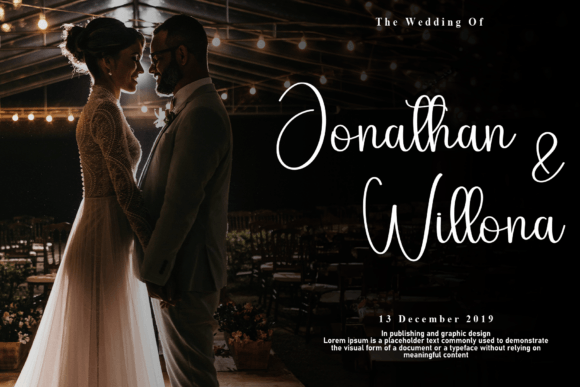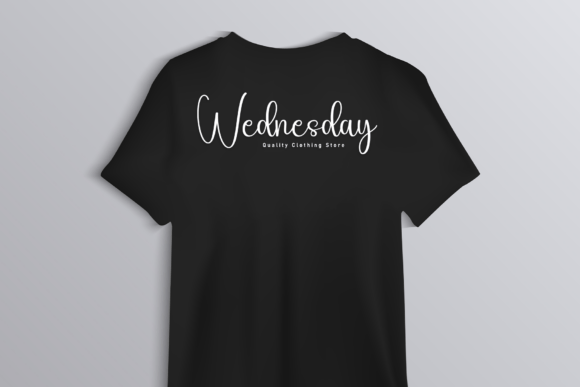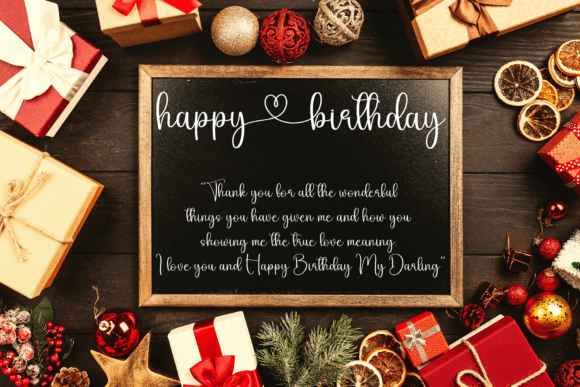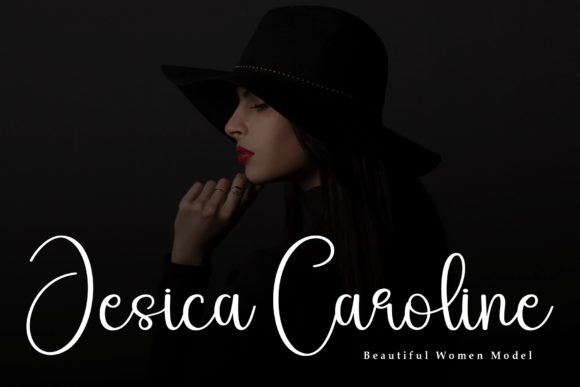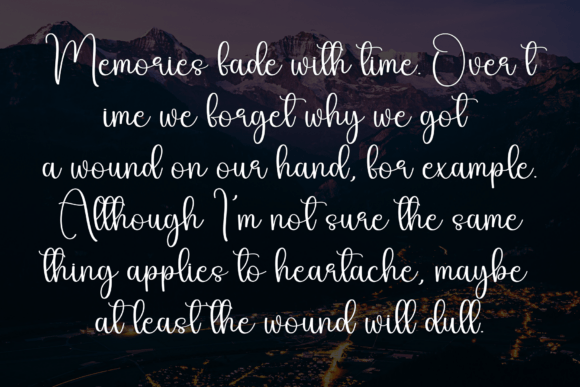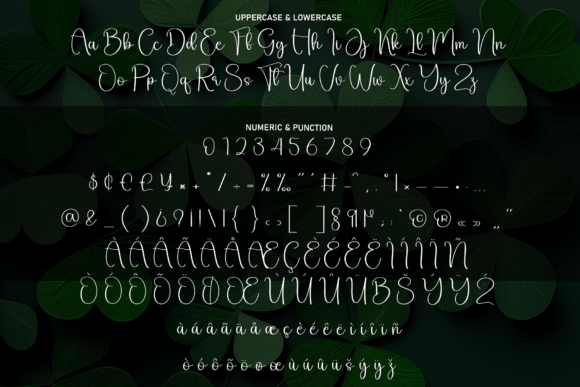
Introduction to Lucky Love Font
Remember the thrill of discovering a perfect font for your creative project? It’s like stumbling upon a hidden treasure – the design comes together seamlessly, and your message shines through. For designers, finding that special font can be a game-changer. One such treasure is the Lucky Love Font, a charming handwritten font that’s sure to capture hearts.
With its flowing, casual style, the Lucky Love Font exudes a friendly and inviting look that’s perfect for personal and creative projects. Whether you’re designing a wedding invitation, a social media graphic, or a blog post, this font is sure to add a touch of warmth and personality to your design.
Honest Review: Lucky Love Font
I recently had the chance to try out the Lucky Love Font, and I must say it’s a lovely addition to my design library. ✨ The font’s elegant and whimsical feel makes it perfect for creative projects that need a touch of romance and charm.
One of the things that stands out about the Lucky Love Font is its high quality. It’s a well-crafted font with smooth lines and clear typography, making it easy to read and use in various contexts. The fact that it’s available for free download is also a major plus, as it makes it accessible to designers of all levels.
- Beautiful, hand-drawn style that adds a touch of personality to any project
My only concern with the Lucky Love Font is that it may not be suitable for more formal or corporate projects. ⚠️ The font’s playful feel may come across as unprofessional in certain contexts. However, for creative projects or personal branding, it’s a great choice.
Tips for Getting the Most Out of Lucky Love Font
The Lucky Love Font is a versatile design resource that can be used in a variety of creative projects, including wedding invitations, social media graphics, and blog posts. It’s a great choice for anyone looking for a high-quality, free download font to add a touch of love and whimsy to their design.